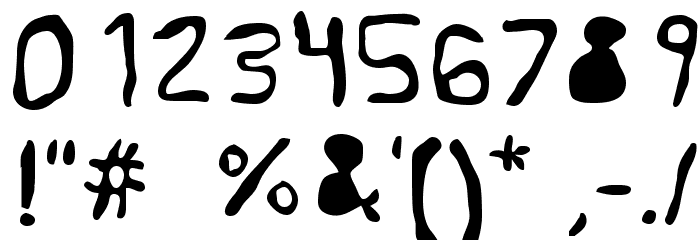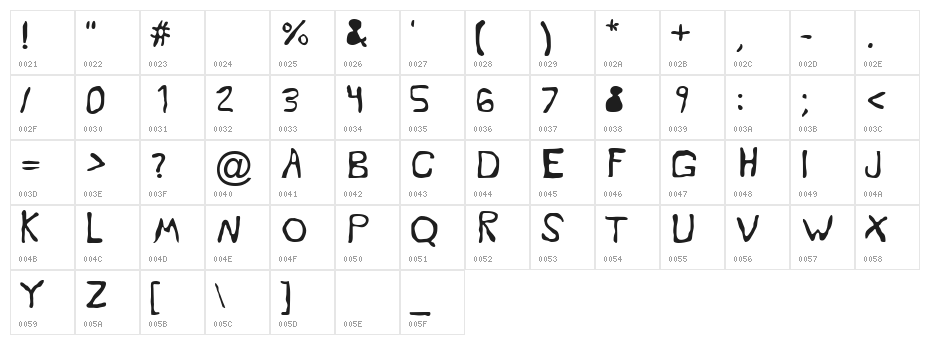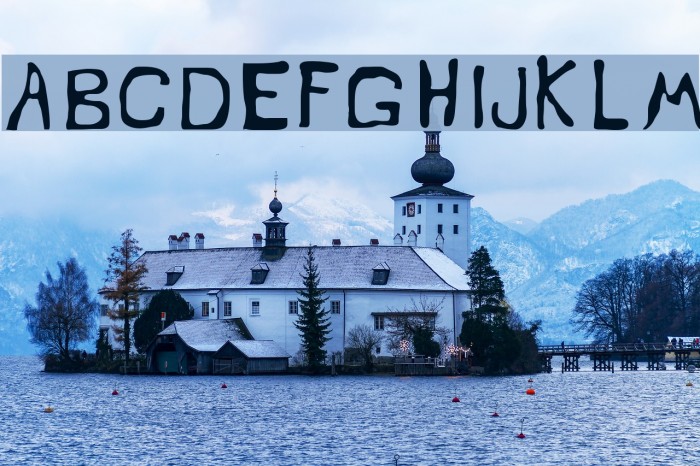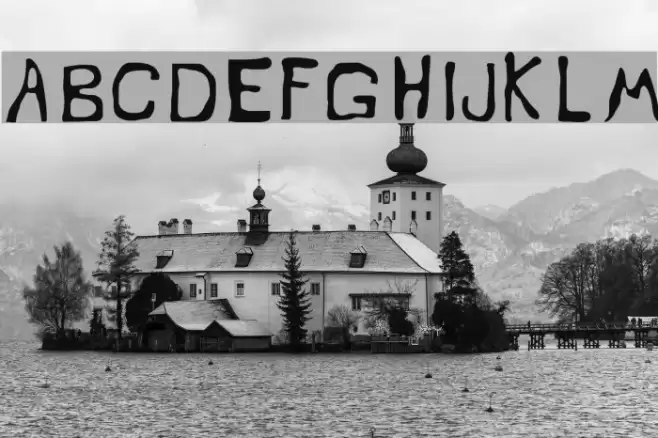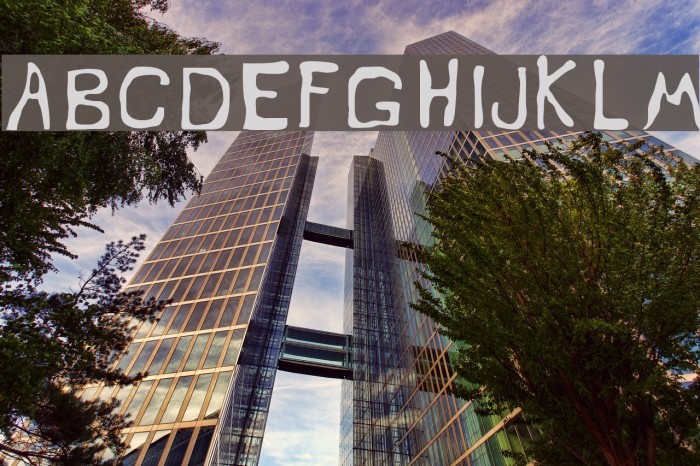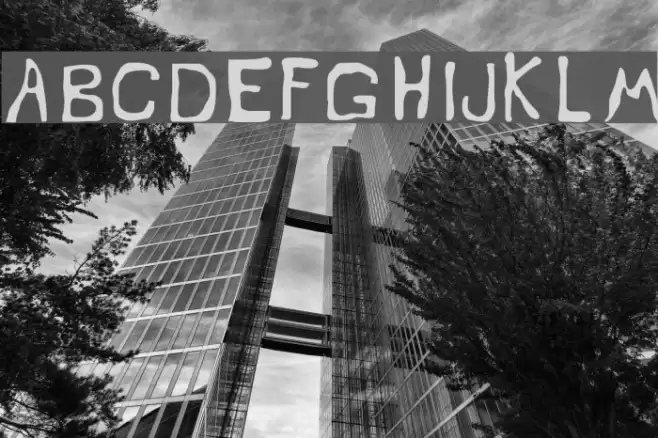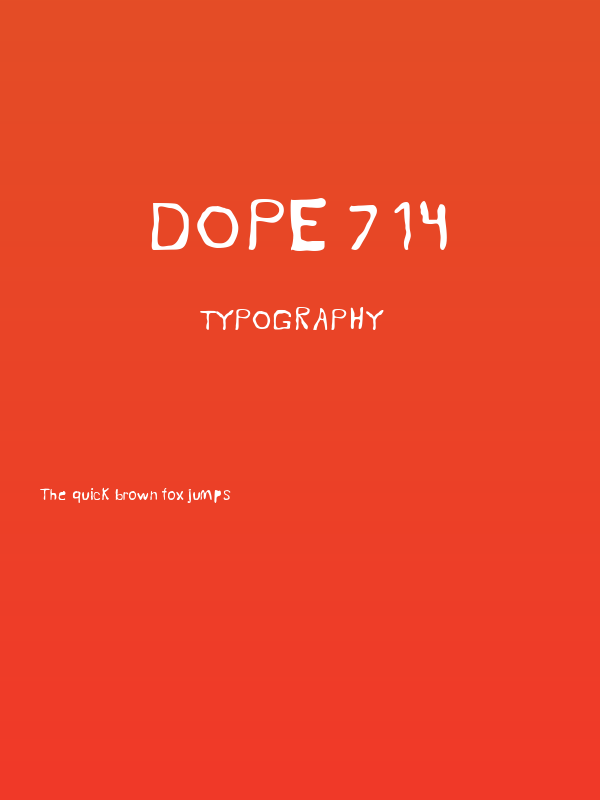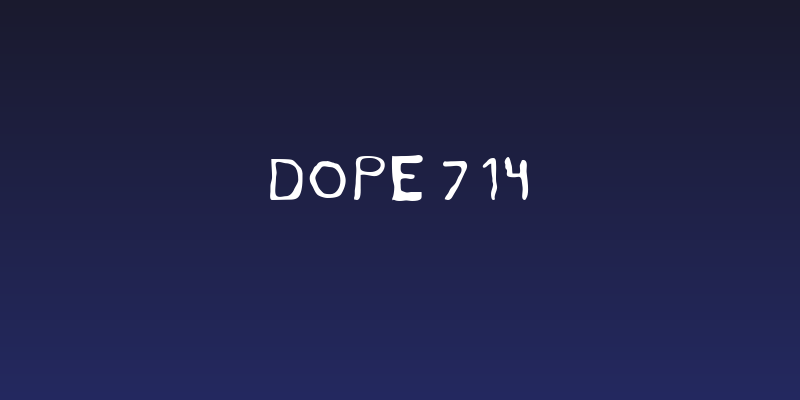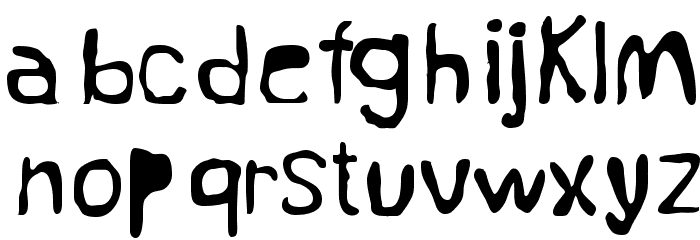
dope 714 Font
dope 714 Description
This font features a playful and irregular design, characterized by its uneven and wavy strokes. The letters have a hand-drawn appearance, giving them a unique and artistic flair. The uppercase and lowercase letters maintain a consistent style, with a slightly exaggerated and whimsical form. The numbers and special characters follow the same quirky design, making the font suitable for creative and informal projects. The overall look is casual and fun, perfect for capturing attention and adding a personal touch.
| Proposed Projects | Ideal for children's books, creative posters, casual branding, and artistic invitations. |